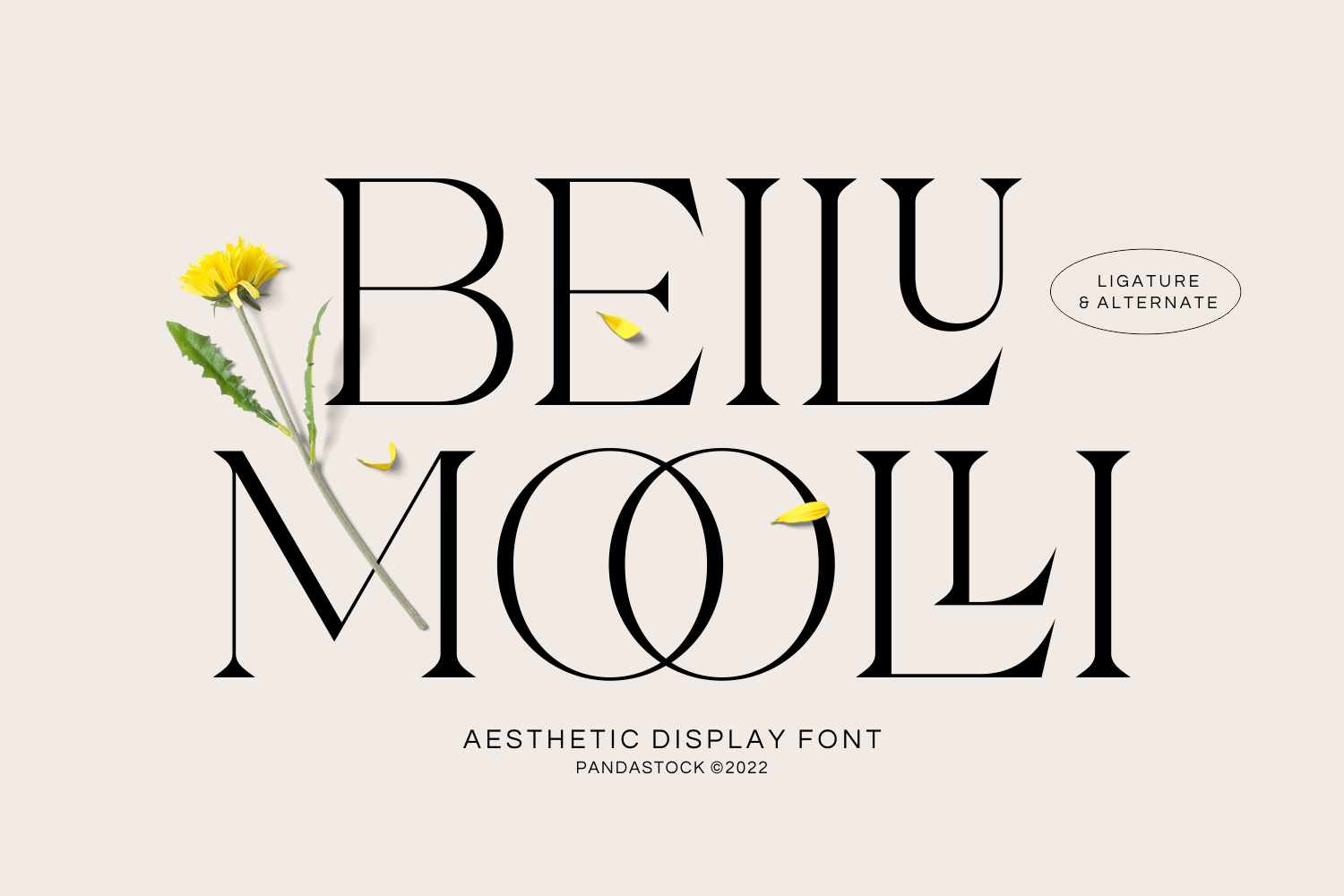
Beilu Moolli – Modern Serif Font
Beilu Moolli – Modern Serif Font, an elegant, high-contrast display serif font designed for modern editorial layouts, luxury branding, and high end visual identities. Featuring sleek curves, striking high contrast, and a vast collection of unique ligatures and stylistic alternates, this typeface effortlessly transitions between minimalist sophistication and dramatic display headline styles.
Beilu Moolli brings refined beauty and contemporary flair. Designed with editorial typography and fashion aesthetics in mind, this font is perfect for luxury branding, magazine covers, cosmetic packaging, wedding stationery, art gallery branding, and chic social media graphics.